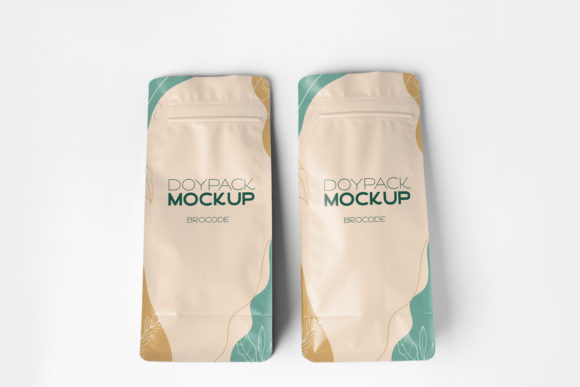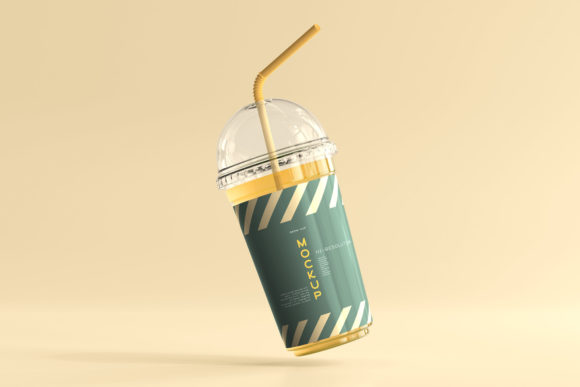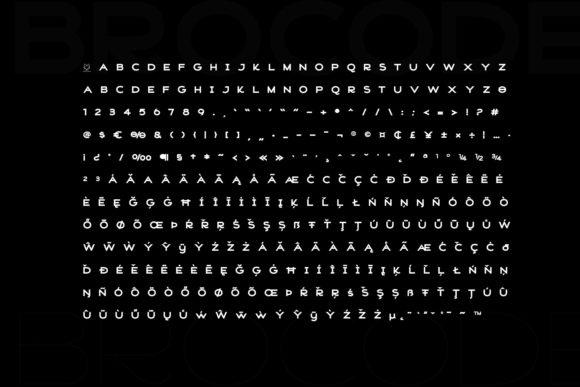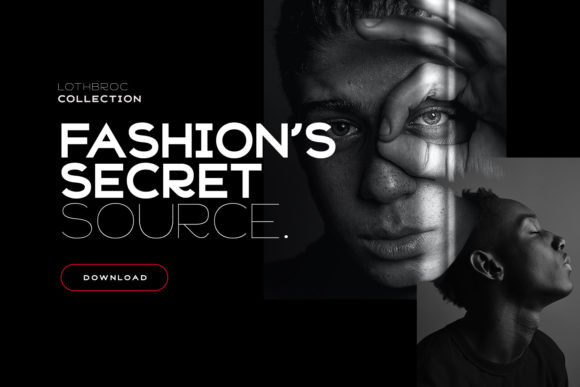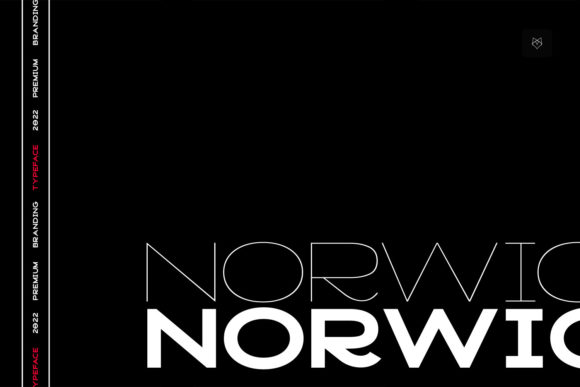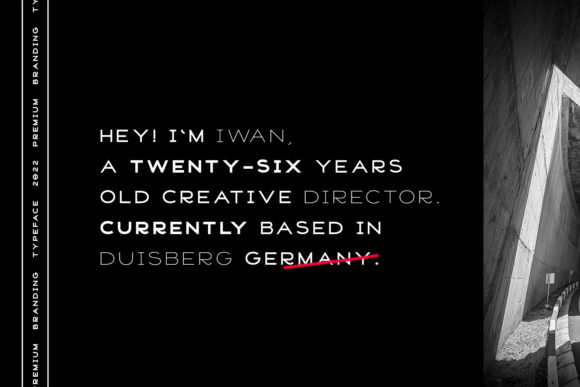
Unleash Your Creativity with Brocode Font: The Ultimate Display Font for Designers and Crafters
Are you a designer, crafter, or DIY enthusiast looking for a versatile font to elevate your projects? Look no further than Brocode Font! This exciting display font is designed to add a touch of personality and style to a wide range of creative endeavors. In this article, we’ll explore the features and benefits of Brocode Font, and show you how to make the most of this amazing resource.
What is Brocode Font?
Brocode Font is a unique and versatile display font that comes in various sizes, making it perfect for a multitude of projects. Whether you’re working on blog posts, logos, branding, ads, invitations, greeting cards, planners, photo albums, decorations, or anything in between, Brocode Font is the ideal choice. Its flexibility and wide range of applications make it a must-have for designers, crafters, and DIY enthusiasts.
Key Features of Brocode Font
- Various Sizes: Brocode Font comes in multiple sizes, allowing you to choose the perfect size for your project.
- Display Font: Designed specifically as a display font, Brocode Font is optimized for headlines, titles, and short text passages.
- Highly Versatile: Use Brocode Font for a wide range of projects, from digital designs to print materials.
- Easy to Use: Simply add Brocode Font to your design and enjoy the results!
How to Use Brocode Font in Your Projects
Brocode Font is incredibly easy to use, even for those with limited design experience. Here are some ideas to get you started:
- Blog Posts: Use Brocode Font to create eye-catching headlines and titles that grab your readers’ attention.
- Logos and Branding: Create a professional and memorable logo with Brocode Font that reflects your brand’s personality.
- Ads and Invitations: Make your ads and invitations stand out with Brocode Font’s bold and playful style.
- Greeting Cards and Planners: Add a personal touch to your greeting cards and planners with Brocode Font’s unique and stylish characters.
- Photo Albums and Decorations: Use Brocode Font to add a creative and artistic touch to your photo albums and decorations.
Benefits of Using Brocode Font
So why choose Brocode Font for your projects? Here are just a few benefits:
- Time-Saving: With Brocode Font, you can create professional-looking designs in no time.
- Customizable: Experiment with different sizes, colors, and styles to make Brocode Font your own.
- Unique and Memorable: Brocode Font’s distinctive style will help your designs stand out from the crowd.
Tips and Tricks for Getting the Most Out of Brocode Font
To take your designs to the next level with Brocode Font, try these expert tips:
- Experiment with Different Sizes: Mix and match different sizes of Brocode Font to create visual interest and hierarchy.
- Play with Colors: Try out different colors and color combinations to add depth and emotion to your designs.
- Combine with Other Fonts: Pair Brocode Font with other fonts to create a unique and stylish typography.
Brocode Font is a versatile and stylish display font that’s perfect for designers, crafters, and DIY enthusiasts. With its various sizes, ease of use, and wide range of applications, Brocode Font is a must-have resource for anyone looking to elevate their creative projects. Whether you’re a seasoned designer or just starting out, Brocode Font is sure to inspire and delight. So why wait? Download Brocode Font today and start creating amazing designs!